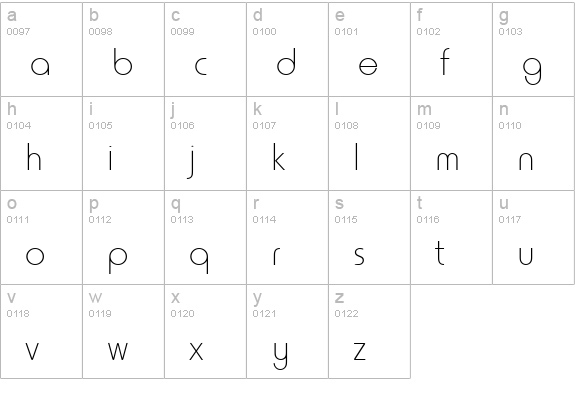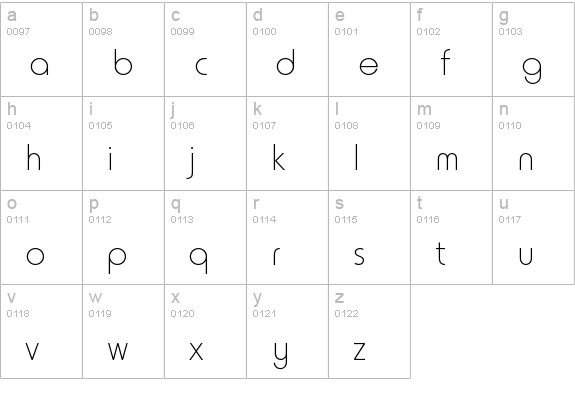
FFX Simple Thin is a delicate, low-contrast variant in the FFX typeface family \xE2\x80\x94 well suited to fashion editorial, minimal branding, and high-contrast display.
FFX Simple Thin font is a sleek and minimalistic typeface that exudes elegance and modernity. With its clean lines and slender letterforms, this font is perfect for creating a sophisticated and contemporary look in your designs. The simplicity of the Thin weight adds a touch of sophistication, making it ideal for a wide range of projects, from branding and logos to editorial design and packaging. What's even better is that FFX Simple Thin font is available for free download at FontsMarket.com. This means you can easily access this stylish font and use it in your projects without any cost. Don't miss out on the opportunity to enhance your designs with this versatile and stylish typeface - download FFX Simple Thin font today and elevate your creative work to the next level.